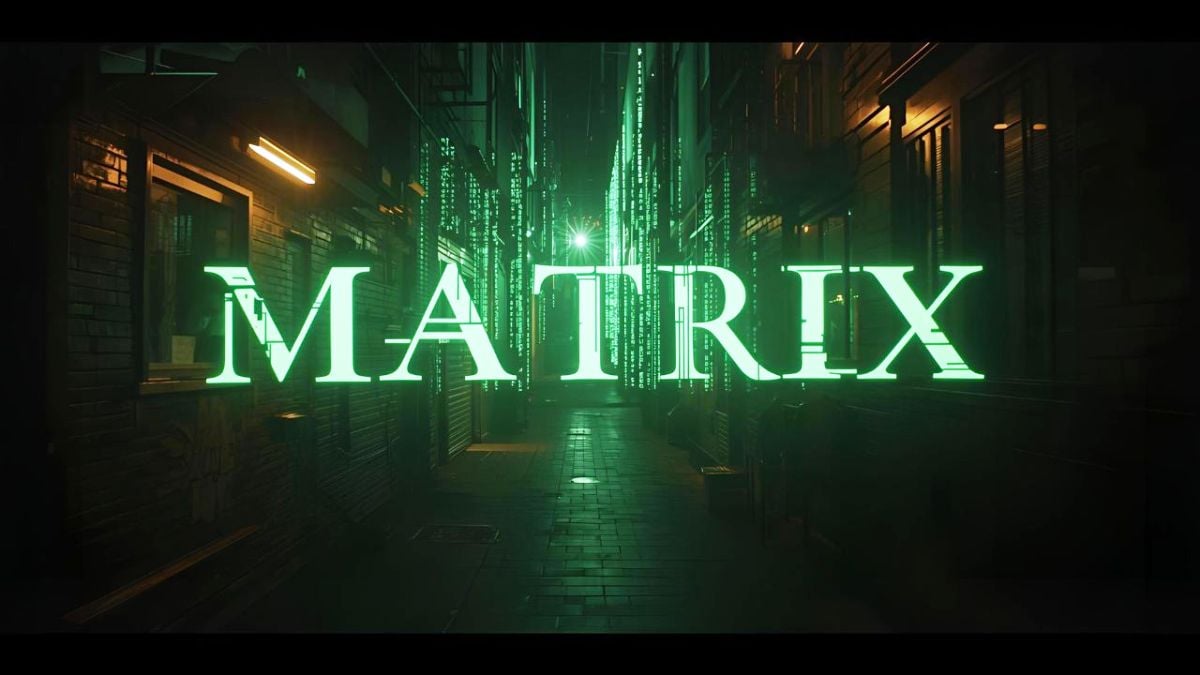
Create digital Matrix typography with cyberpunk effects and green neon styling. Perfect for hackers, digital artists, and Matrix-themed designs.
What is Matrix Font?
Matrix fonts capture the iconic digital aesthetic of the Matrix movies. These monospace typefaces bring authentic cyberpunk styling to your digital typography. Perfect for hacker-themed designs, digital art, and Matrix-inspired projects.
🖥️ Authentic Matrix Fonts
Access the real Matrix font collection with multiple styles including Matrix, DOTMATRI, and DOTMBold for authentic cyberpunk typography.